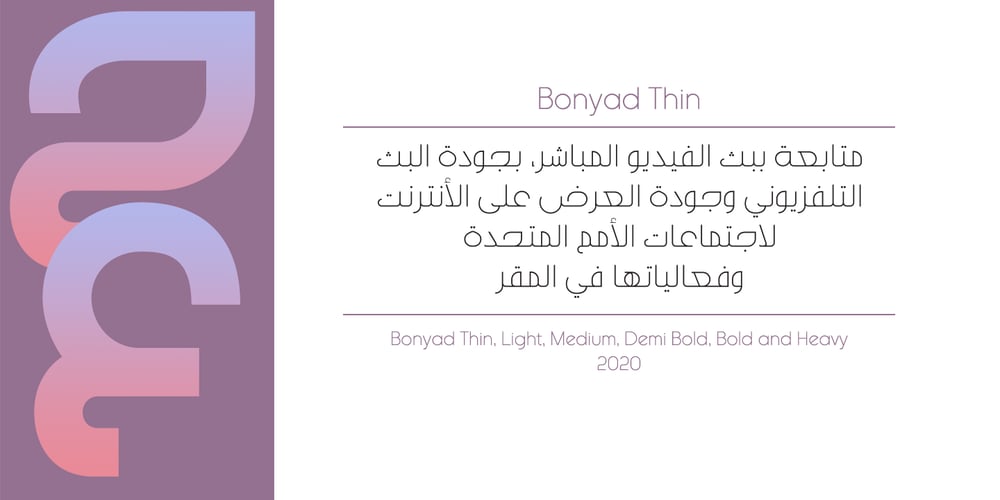
Bonyad Font Family was designed by Naghi Naghashian and published by Naghi Naghachian. Bonyad contains 6 styles and family package options. The Bonyad font family, designed by Naghi Naghashian, was developed considering specific research and analysis on Arabic characters and definition of their structure. Bonyad is a modern Sans Serif font family.The Bonyad innovation is a contribution to modernisation of Arabic typography; gives the Arabic font letters real typographic arrangement and provides for more typographic flexibility. Bonyad supports Arabic, Persian, and Urdu and includes proportional and tabular numerals for the supported languages. The Bonyad Font family is available in six weights; Thin, Light, Regular, Demi Bold, Bold and Heavy. Its intuitive design arrangement fulfills the following needs: It is precisely crafted for use in electronic and print media. Bonyad is not based on any pre-digital typefaces and it is not a revival. Rather, its forms were created with today’s ever-changing technology in mind. Bonyad is suitable for multiple applications, and gives the widest potential for acceptability. It is extremely legible not only in its small sizes, but also when the type is filtered or skewed, e.g., in Photoshop or Illustrator. Bonyad’s simplified forms may be artificially oblique with InDesign or Illustrator, without any degradation of its quality for the effected text. Bonyad is an eye-catching and classy typographic image that developed for multiple languages and writing conventions. Bonyad uses the very highest degree of geometric clarity along with the necessary amount of calligraphic references. The Bonyad typeface is of a high vibration that is finely balance between calligraphic tradition and the contemporary sans serif aesthetic commonly seen in Latin typography.